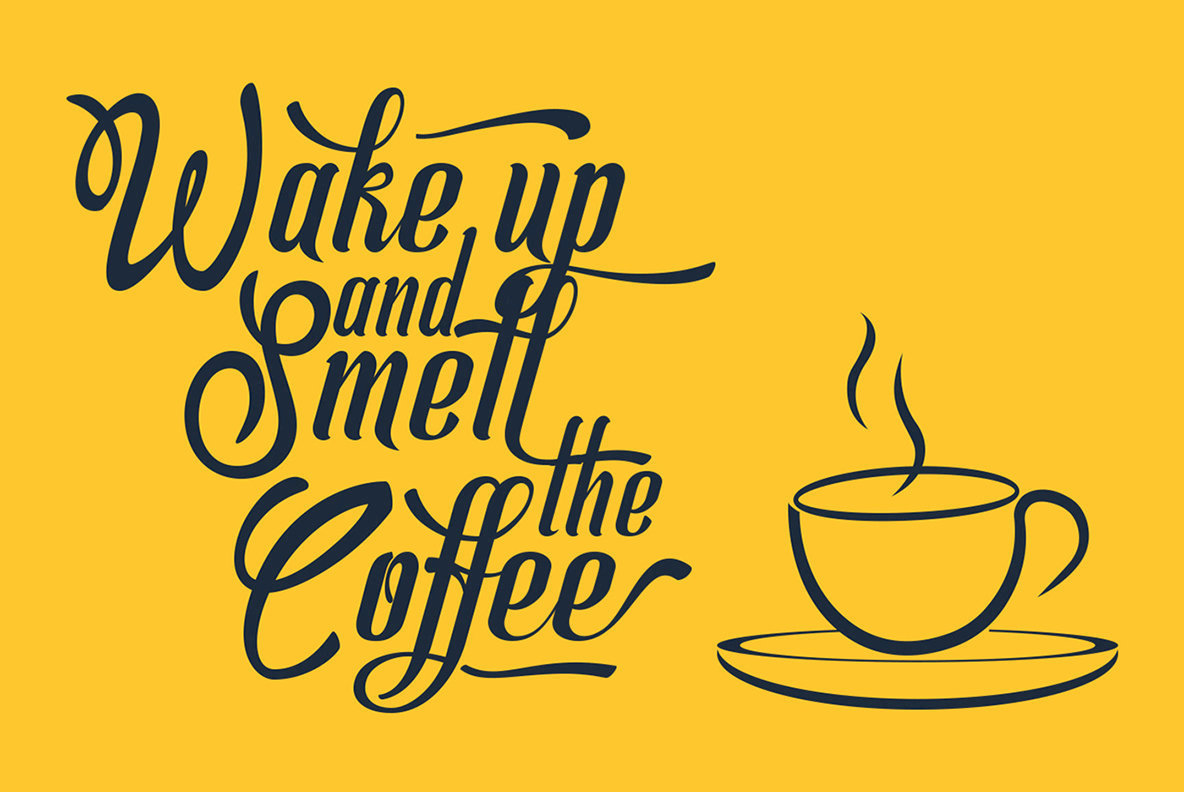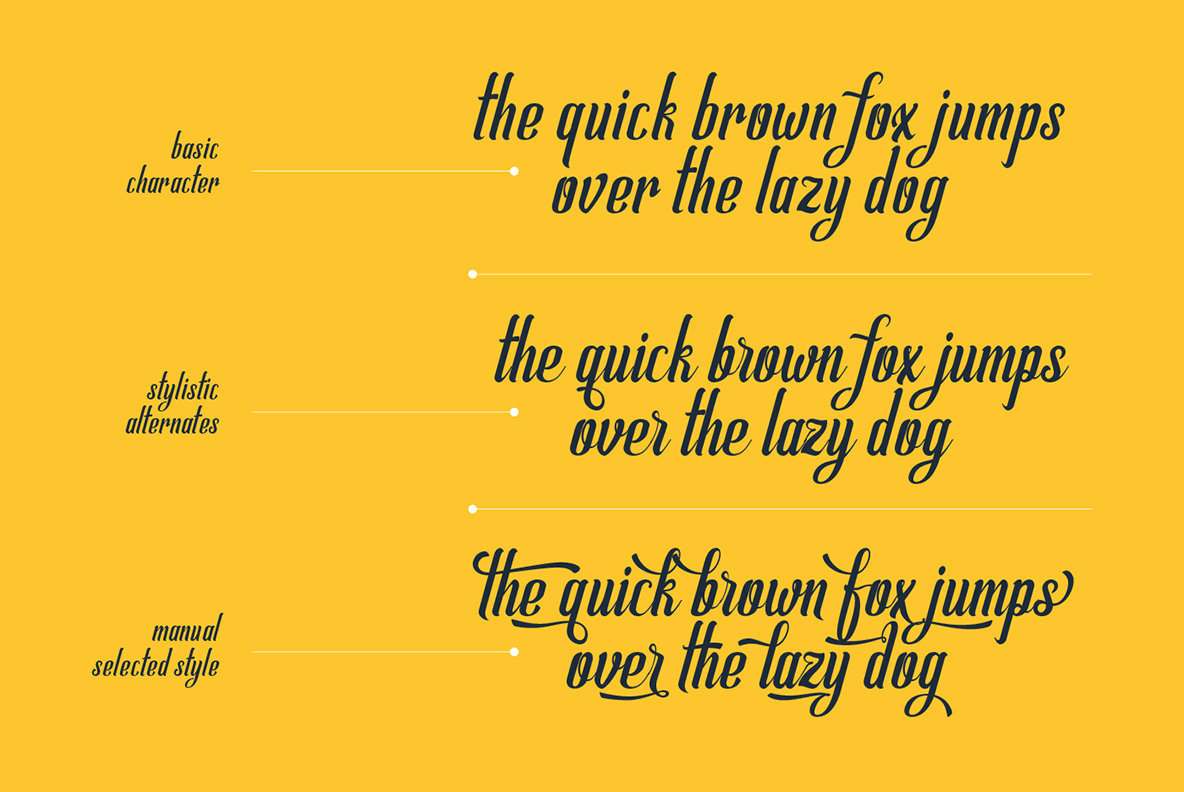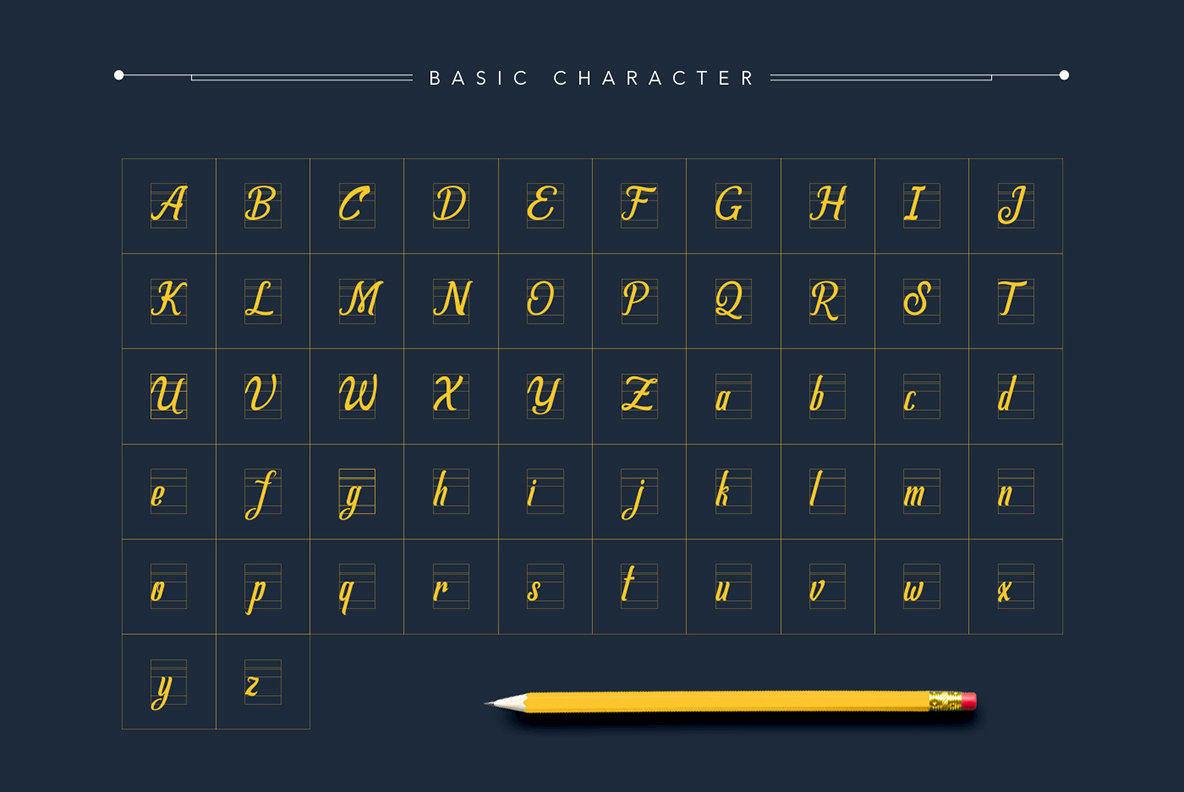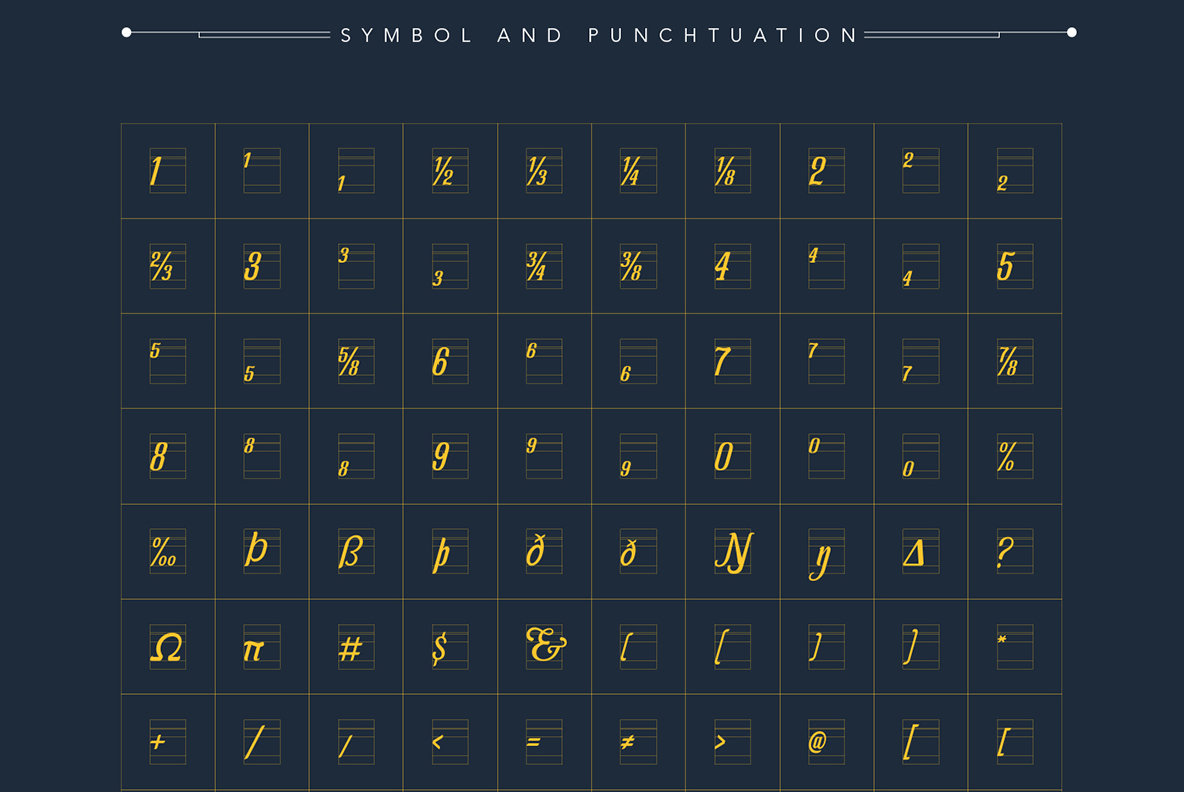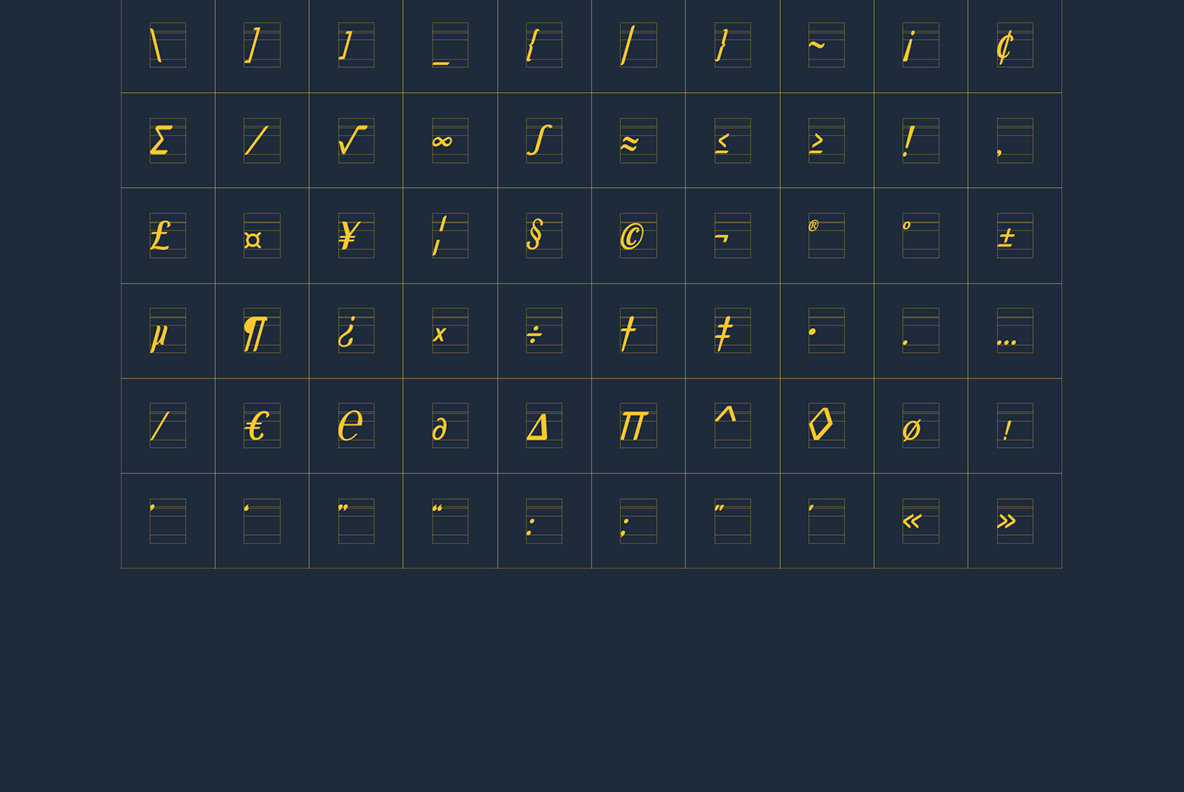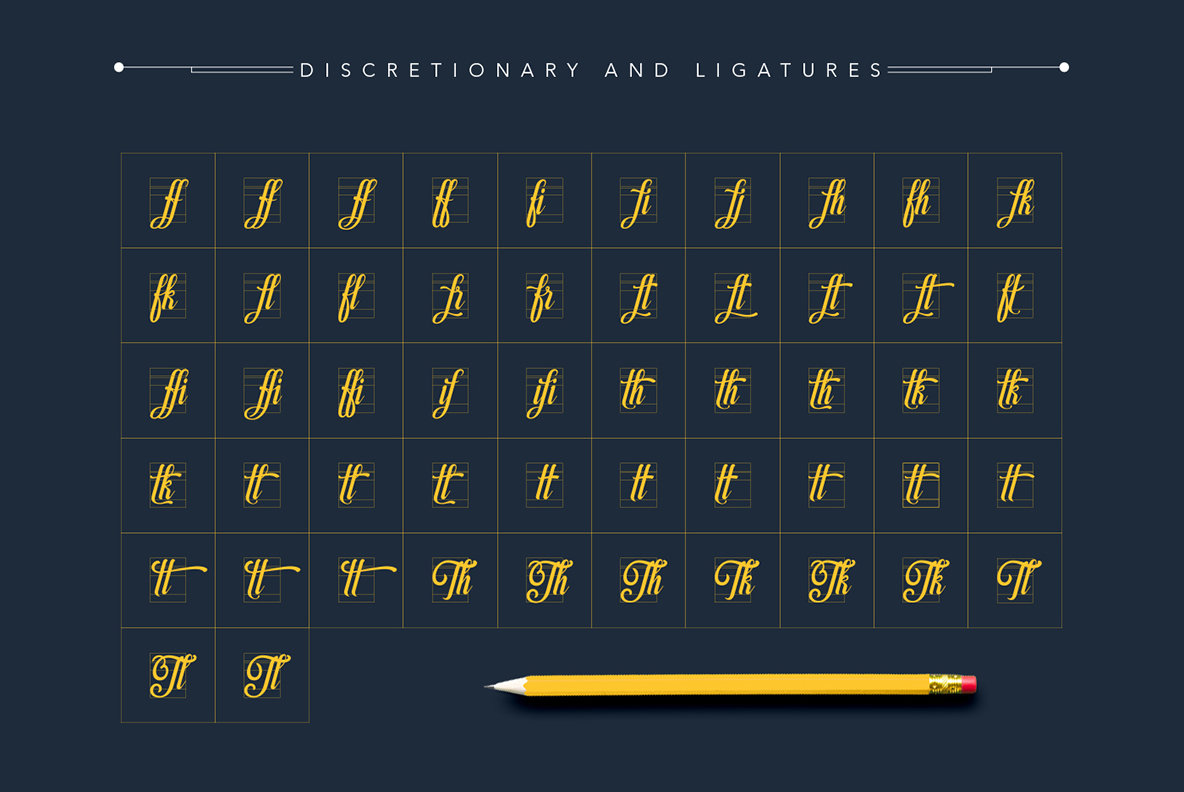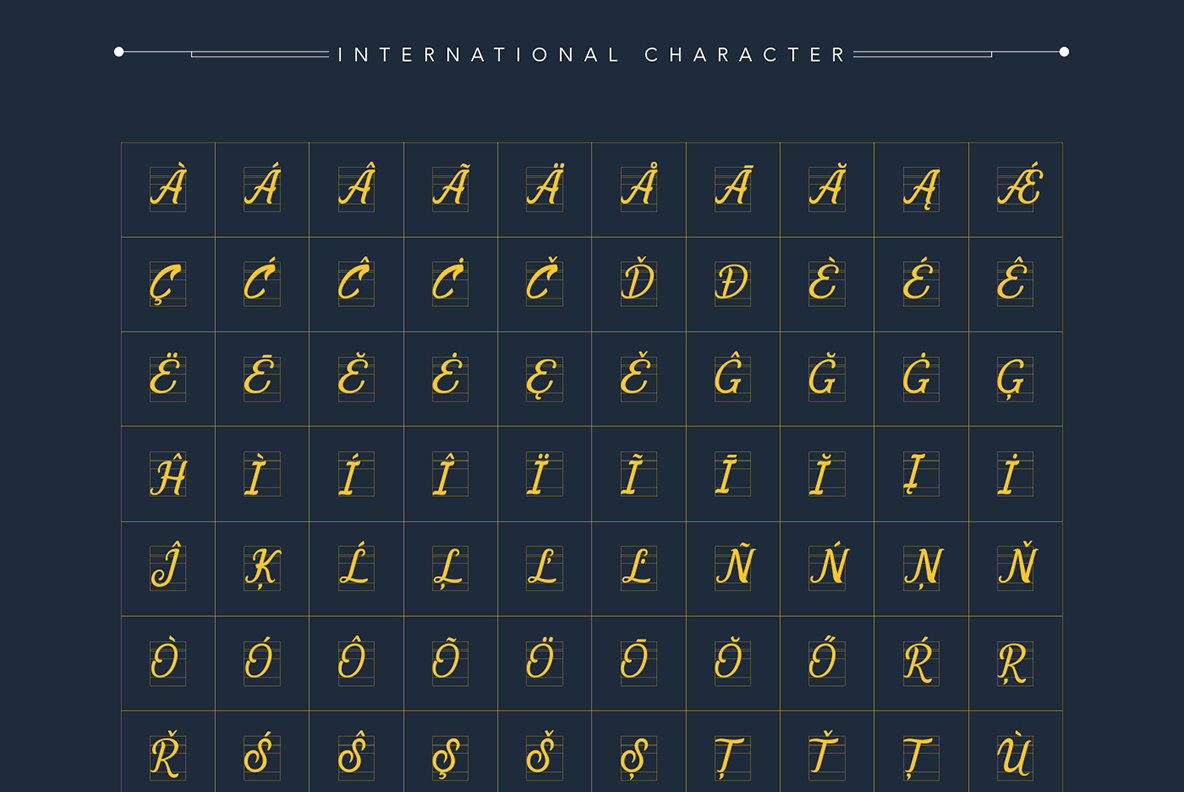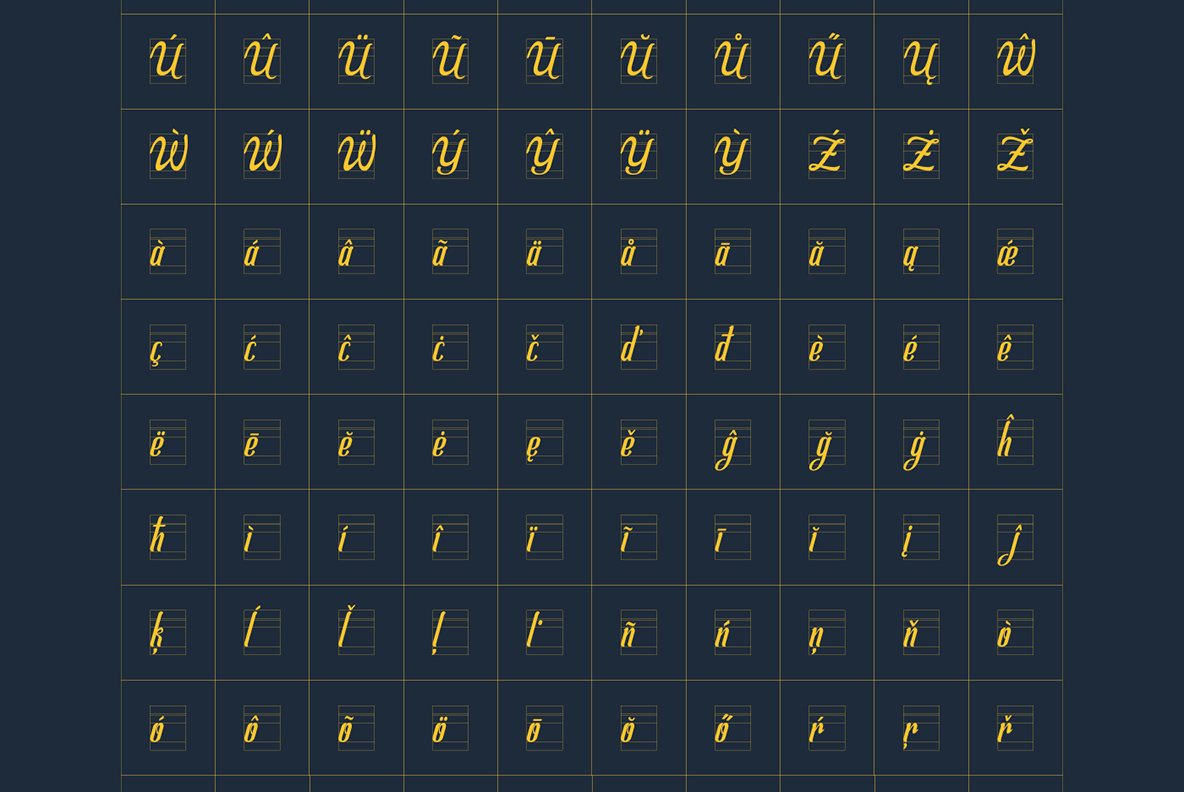
Allema Script Font
Allema
Allema Script is calligraphic script design, published by Aktab Studio.
Features Include:
- Basic Character
- Standard ligatures & Discretionary ligatures
- Contextual Alternates
- Stylistic Alternates
- Fractions
- Stylistic Sets
- Multi-language Support